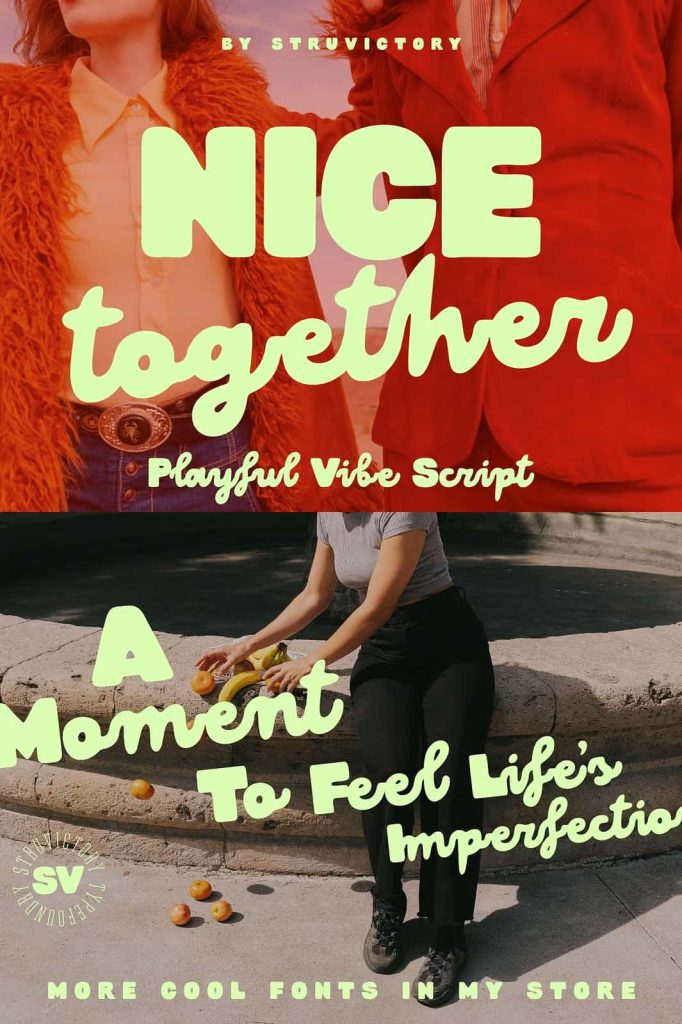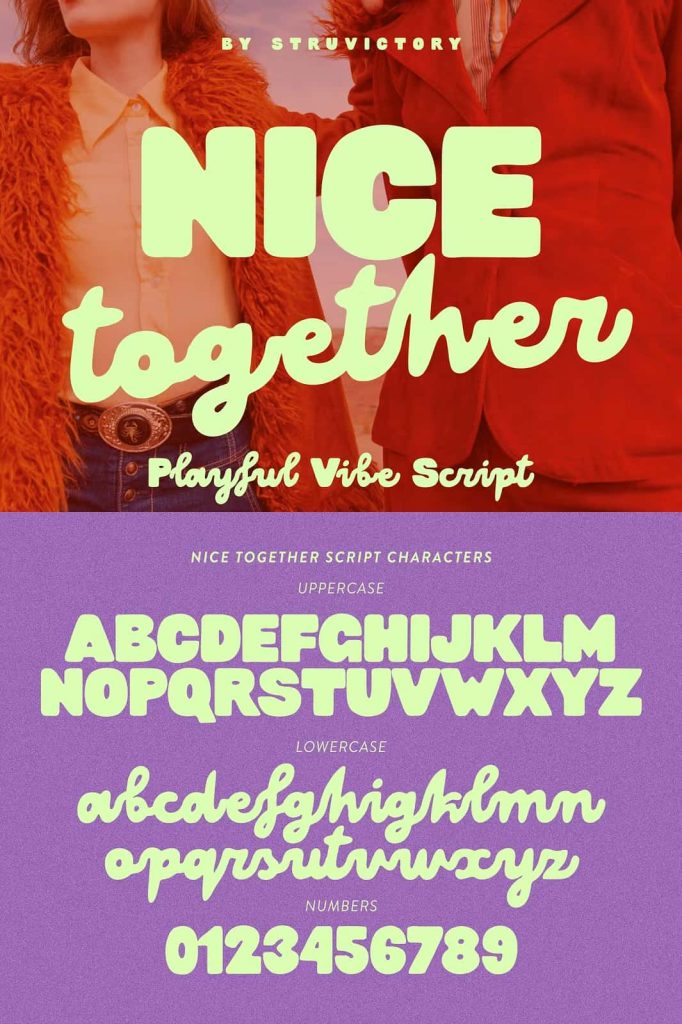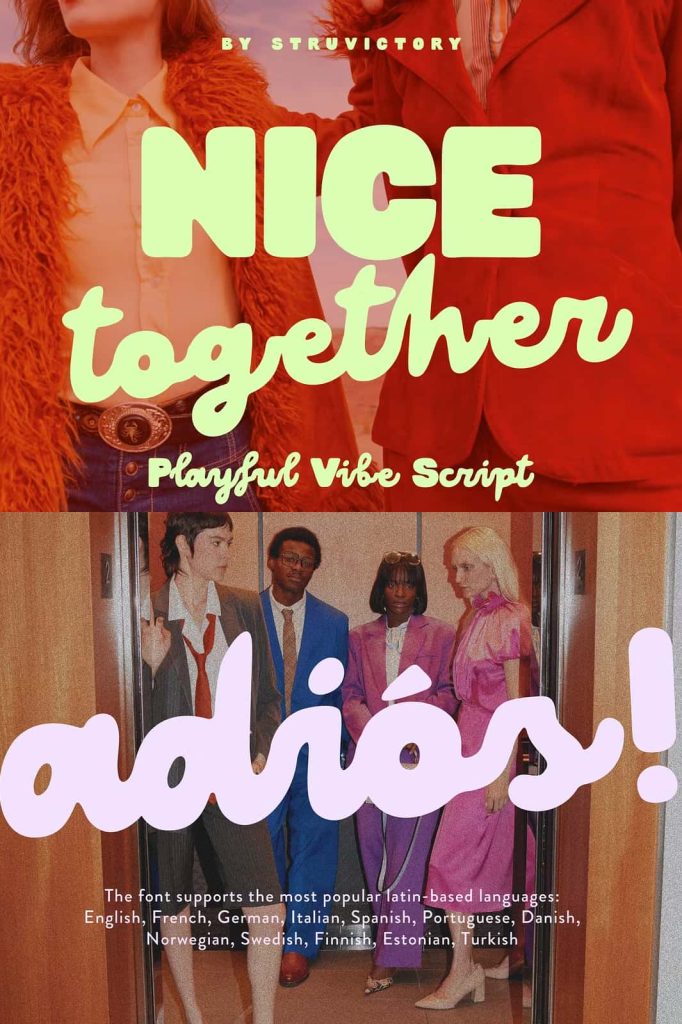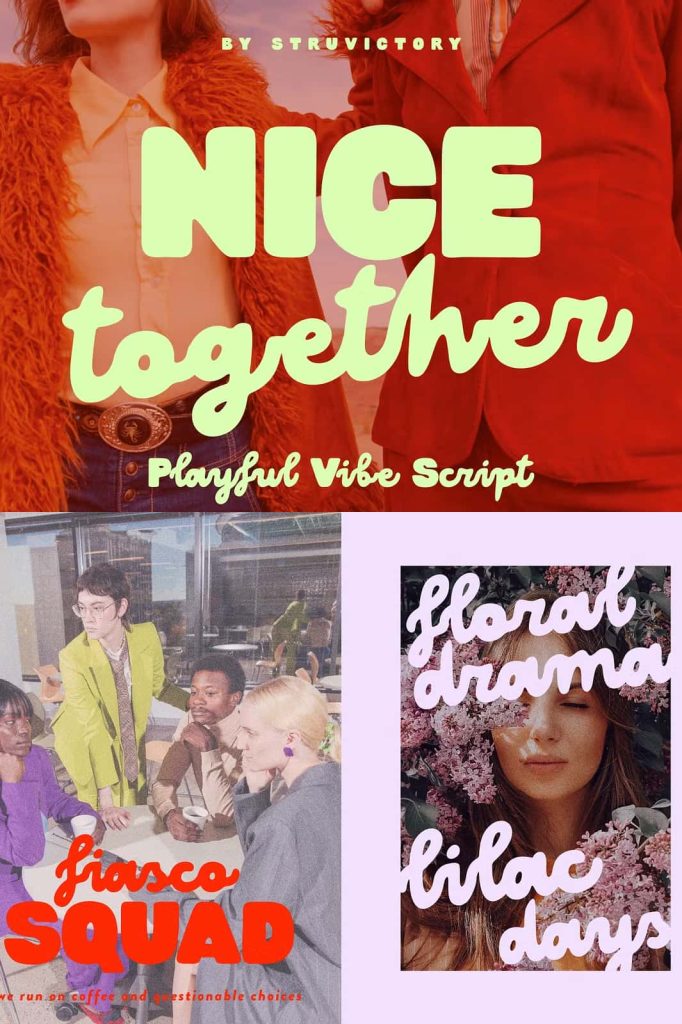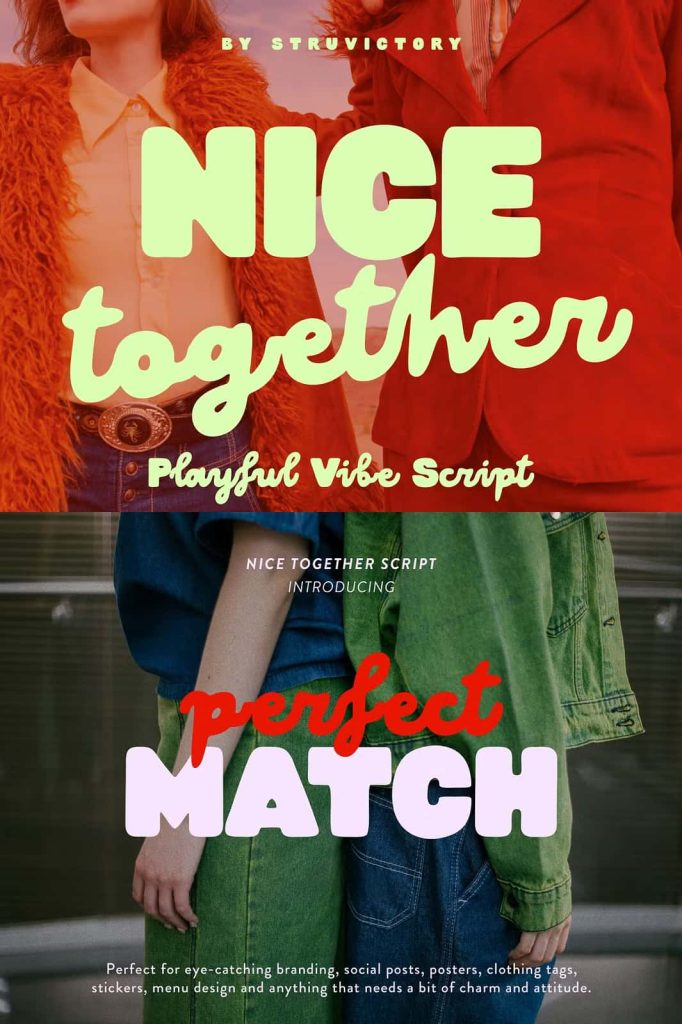
Nice Together Font: A Playful Handwritten Duo with Bold Personality
Nice Together Font delivers a fresh and expressive approach to modern typography by combining two complementary styles into one cohesive system. This font duo features a chunky all-caps sans alongside a soft handwritten script in lowercase, giving designers the flexibility to create visually engaging compositions with ease. It balances boldness and warmth, allowing every design to feel approachable, stylish, and full of character.
By pairing structure with fluidity, Nice Together Font helps you craft designs that stand out while maintaining clarity and charm. It offers a unique visual rhythm that makes your text more dynamic and memorable.
A Perfect Blend of Bold and Soft Styles
Nice Together Font thrives on contrast. The all-caps sans delivers a strong, confident presence with clean and chunky letterforms, while the handwritten script introduces a softer, more personal touch. This intentional pairing creates a natural harmony that enhances readability and visual appeal.
Designers can use the bold sans style to highlight key messages and combine it with the script to add personality and flow. This interaction between the two styles creates a layered typographic experience that feels modern and engaging.
Create Dynamic and Trendy Visuals
Nice Together Font empowers you to design with creativity and confidence. Its contrasting styles allow you to experiment with hierarchy, spacing, and composition. You can emphasize important words with the bold sans while using the script to guide the viewer’s eye through the design.
This flexibility makes it easy to produce trendy layouts that feel intentional and polished. Whether you are designing for digital platforms or print materials, the font adapts smoothly to different formats.
Ideal for Branding and Social Media
Nice Together Font works exceptionally well for branding projects that require a friendly and modern tone. It helps businesses communicate personality without sacrificing professionalism. The bold sans establishes a strong identity, while the script adds a human touch that resonates with audiences.
For social media content, this font duo creates scroll-stopping visuals. Its playful nature makes posts more engaging and visually appealing. Designers can use it to craft captions, headlines, and promotional graphics that capture attention quickly.
Enhance Creative Applications
Nice Together Font extends beyond branding and social media. It performs beautifully in a wide range of creative applications, including posters, clothing tags, stickers, and menu designs. Its versatility allows you to adapt it to various themes, from casual and fun to clean and contemporary.
The handwritten script brings warmth and authenticity to designs, while the sans style maintains structure and clarity. This combination ensures that your projects remain both expressive and easy to read.
Designed for Versatility and Ease of Use
Nice Together Font provides a practical solution for designers who want to create cohesive designs without switching between unrelated typefaces. Its built-in pairing saves time while ensuring visual consistency across projects. You can rely on this font duo to deliver balanced results in both simple and complex layouts.
It also adapts well to different color schemes and backgrounds. Whether you use bright tones or neutral palettes, the font maintains its charm and readability. This makes it a dependable choice for both experimental and professional design work.
Why Choose Nice Together Font
Nice Together Font stands out because it combines personality with functionality. It offers designers a tool that feels creative yet controlled, allowing for expressive designs without losing structure. Its dual-style approach encourages experimentation while maintaining a cohesive visual identity.
By choosing Nice Together Font, you gain the ability to create designs that feel lively, modern, and approachable. It helps you communicate your message clearly while adding a layer of charm and individuality.
Nice Together Font brings together bold and soft elements to create a truly versatile and engaging typeface duo. It supports a wide range of design needs, from branding and social media to print and creative projects. With its playful energy and balanced structure, this font enables you to produce work that feels both professional and full of personality.